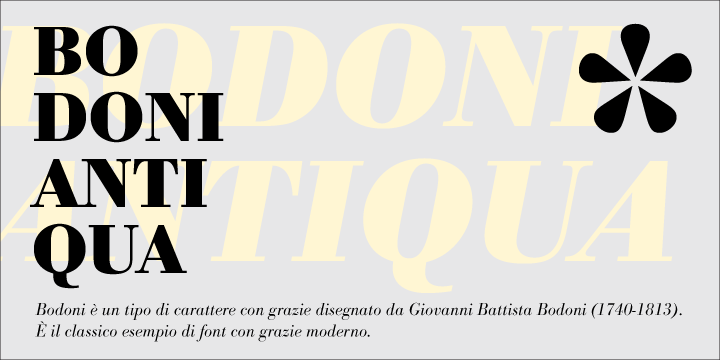
Bodoni Antiqua Font is perfect for various applications including luxury fashion magazines, high-end brand identities, classical music event posters, prestigious book publishing, elegant invitation designs, sophisticated advertising campaigns, upscale restaurant menus, heritage brand communications, fine art exhibition materials, and timeless editorial layouts.
What makes Bodoni Antiqua Font so exciting is its masterful revival of classical Italian typography that combines dramatic contrast with refined elegance to create an atmosphere of timeless sophistication and cultural heritage. This distinguished typeface features sharp, high-contrast letterforms with neoclassical proportions and elegant details that capture the essence of 18th-century Italian craftsmanship and enduring typographic excellence. The font's classical character and heritage-inspired aesthetic make it ideal for brands that want to convey tradition, luxury, and cultural sophistication to audiences who appreciate classical beauty, refined taste, and historical elegance.
Bodoni Antiqua Font family includes multiple weights and styles: Light, Regular, Medium, Bold, Black, Condensed, Extended, Display, and classically crafted Italic variants. Each family member maintains the font's signature classical elegance while offering different levels of visual impact and stylistic flexibility for diverse luxury and heritage applications.
The Bodoni Antiqua Font Free Download provides designers with access to a classically-inspired typeface that excels in luxury and cultural markets. Whether you're creating prestigious brand identities, designing elegant editorial materials, or developing sophisticated cultural experiences, this font delivers the refined aesthetic needed to attract discerning audiences and establish cultural authority. Its classical styling and heritage essence make it particularly effective for luxury brands, cultural institutions, and prestigious publishing houses.
Typography connoisseurs will appreciate the historical authenticity and classical craftsmanship in Bodoni Antiqua Font's design. The font features precisely engineered letterforms with dramatic contrast ratios, optimized spacing for elegant applications, and carefully preserved classical proportions that ensure exceptional readability while maintaining its distinguished character. From luxury fashion spreads to classical concert programs, this typeface maintains its elegance and cultural appeal across all sophisticated contexts.
For luxury web designers, Bodoni Antiqua Font provides outstanding performance in prestigious digital environments and cultural platforms. The font's technical specifications are optimized for high-resolution displays while preserving the sharp, contrasting edges that define its classical character. Its versatility makes it suitable for both static luxury content and dynamic cultural experiences.
Creative professionals working in luxury fashion, cultural institutions, fine arts, and prestigious publishing will find Bodoni Antiqua Font to be an essential tool for projects requiring sophisticated visual communication. The font's ability to convey tradition, luxury, and cultural refinement makes it invaluable for brands targeting affluent demographics and culturally-minded audiences.
Design agencies specializing in luxury and cultural brands appreciate Bodoni Antiqua Font's versatility in creating memorable classical identities.